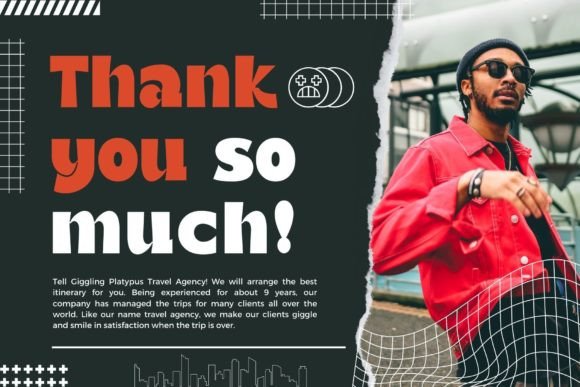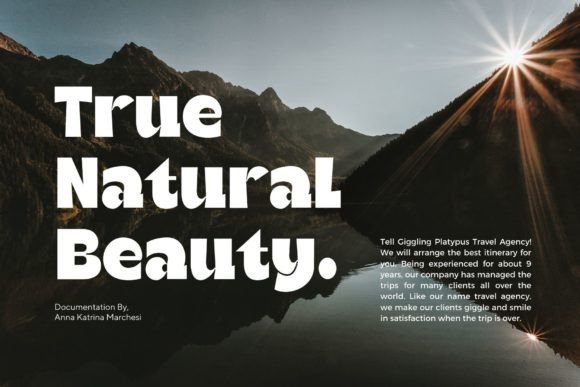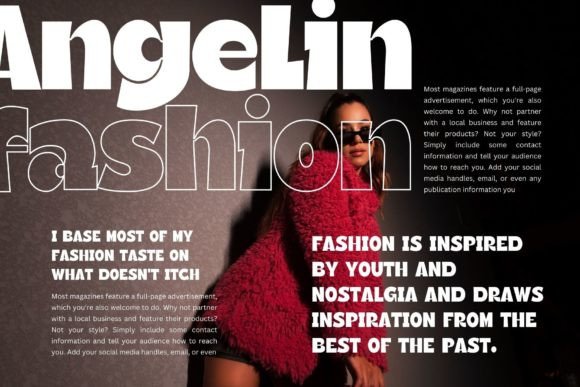
Introducing Going Font: The Epitome of Modern Elegance
In the realm of typography, a font can make or break the visual appeal of a design project. For those seeking a sleek and modern display sans serif font that embodies simplicity and sophistication, look no further than Going Font. With its clean lines and contemporary design, Going is the perfect choice for creating eye-catching headlines, logos, and branding materials that demand attention.
The Design Philosophy of Going Font
Going Font is built on a foundation of balanced letterforms and a versatile nature, making it an ideal choice for both digital and print projects. Its design philosophy revolves around the concept of elegance through simplicity. Each character is meticulously crafted to ensure that the font exudes a sense of modernity and refinement, perfect for designers and crafters looking to elevate their work.
Key Features of Going Font
- Sleek and Modern Design: Going Font boasts a contemporary design that is sure to make your projects stand out. Its sleek appearance is perfect for creating a lasting impression.
- Clean Lines: The font’s clean lines contribute to its sophisticated look, making it ideal for a wide range of design applications.
- Balanced Letterforms: The balanced nature of Going Font ensures that each character complements the others, creating a harmonious and visually appealing text.
- Versatile: Whether you’re working on digital projects or print materials, Going Font adapts seamlessly, ensuring your content looks great across all mediums.
- Elegant: The font’s inherent elegance makes it perfect for projects that require a touch of sophistication, such as luxury branding, high-end product packaging, and more.
Applications of Going Font
The versatility of Going Font makes it suitable for a myriad of design projects. Here are some of the ideal applications for this elegant font:
- Headlines and Titles: Use Going Font to create compelling headlines and titles that capture the essence of your message.
- Logos and Branding: The font’s modern and sophisticated look makes it perfect for logos, brand names, and marketing materials.
- Digital Content: From website headers to social media posts, Going Font ensures your digital content stands out.
- Print Materials: Use Going Font for brochures, posters, business cards, and any other print materials that require a touch of elegance.
Why Choose Going Font?
In a world where first impressions are crucial, having a font that can elevate your design is invaluable. Going Font offers:
- Uniqueness: Stand out from the crowd with a font that is both modern and distinctive.
- Readability: Despite its sleek design, Going Font maintains excellent readability, ensuring your message is conveyed effectively.
- Flexibility: The font’s versatility means it can be used across various projects, making it a valuable addition to any designer’s toolkit.
Going Font is more than just a typeface; it’s a design statement. Its sleek and modern design, combined with its elegant and sophisticated feel, makes it the perfect choice for designers and crafters looking to create visually stunning projects. Whether you’re working on a digital project or a print material, Going Font is sure to elevate your design to new heights. Embrace the simplicity and sophistication of Going Font and let your designs speak with elegance and style.